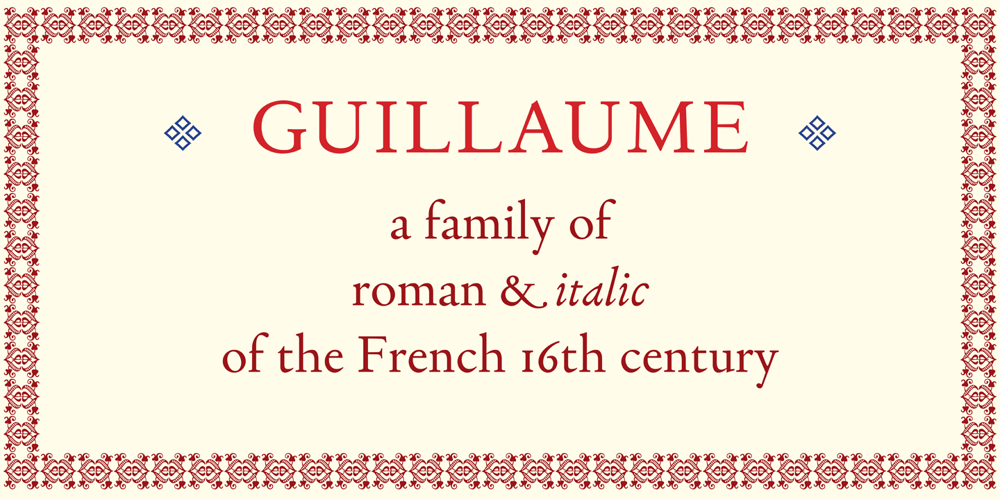
Guillaume Font Family was designed by George Tulloch and published by George Tulloch. Guillaume contains 2 styles and family package options. Guillaume is a small family of text fonts with its roots in the French sixteenth century. The roman is based on the types of Guillaume Le Bé (c.1525–1598), and the italic on those of Claude Garamont (Garamond) (d. 1561). Garamont’s romans have inspired countless modern interpretations, but his italics, despite their merit, have attracted much less attention. Guillaume offers extensive support for European languages, and is best suited for use in applications that support OpenType. Among its OpenType features are ligatures, small caps, several sets of numerals, contextual alternates, intelligent implementation of long ‘s’ and other period features, and fractions. For more detail, please see the pdf available in the Gallery.